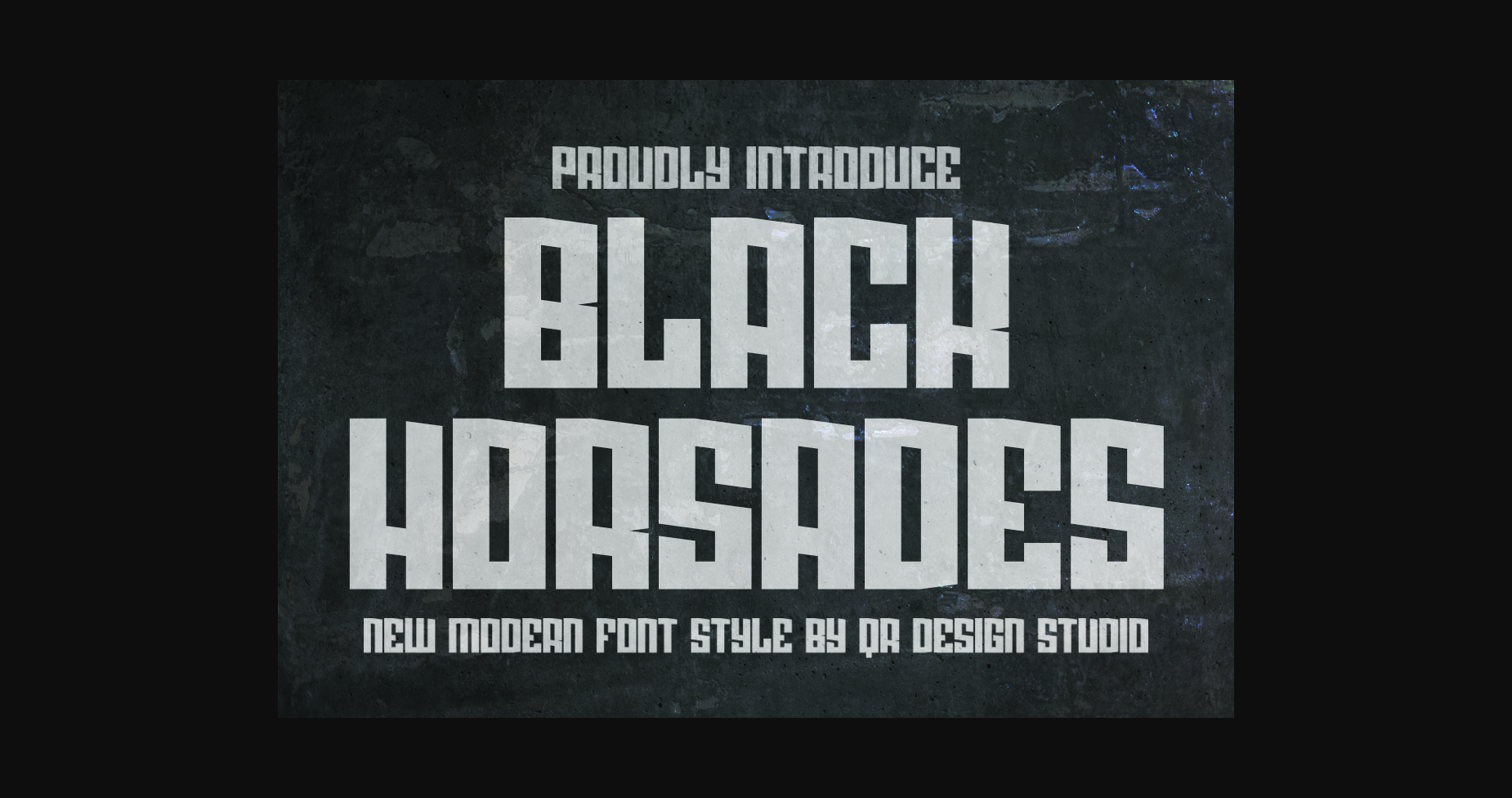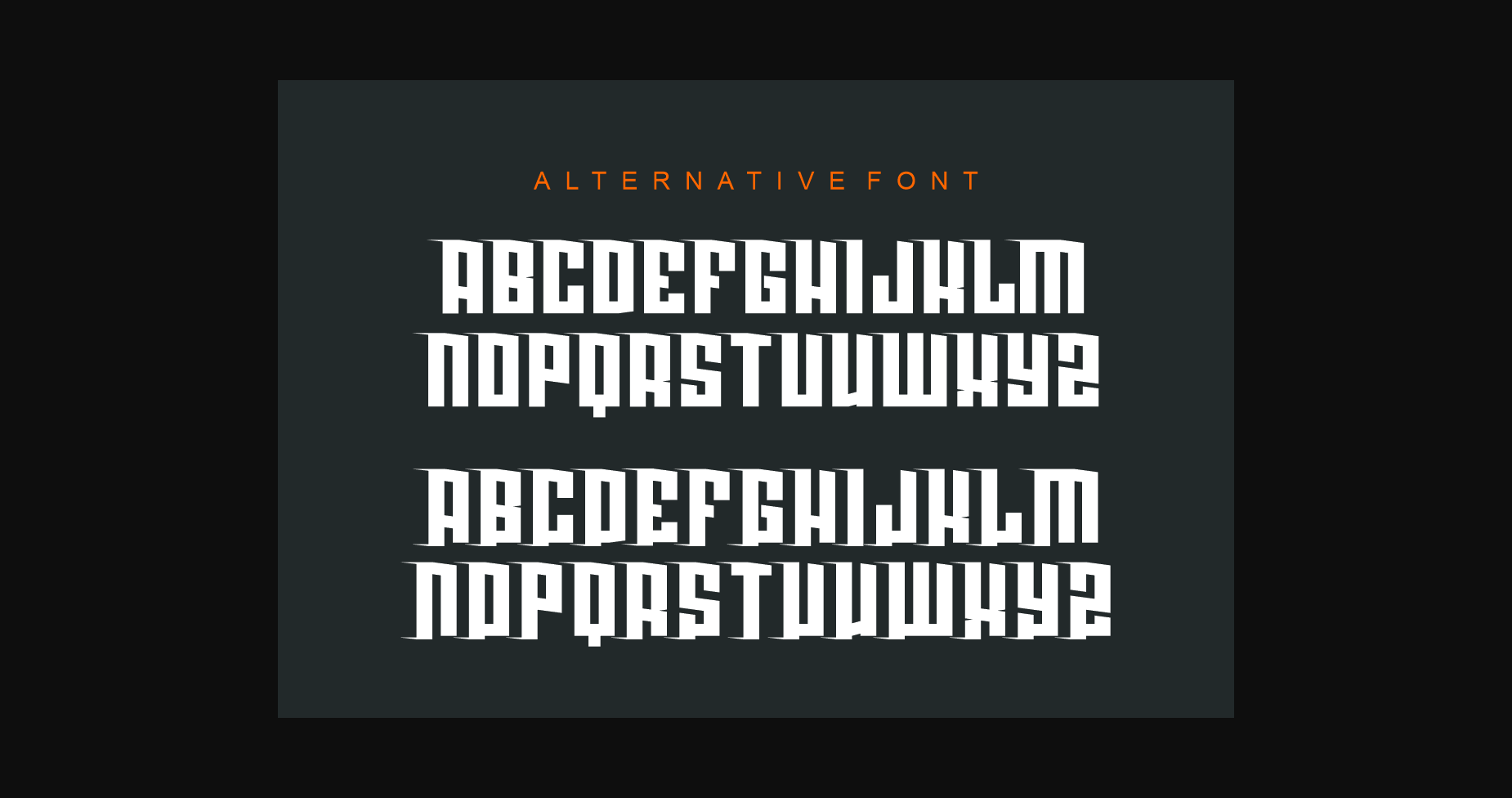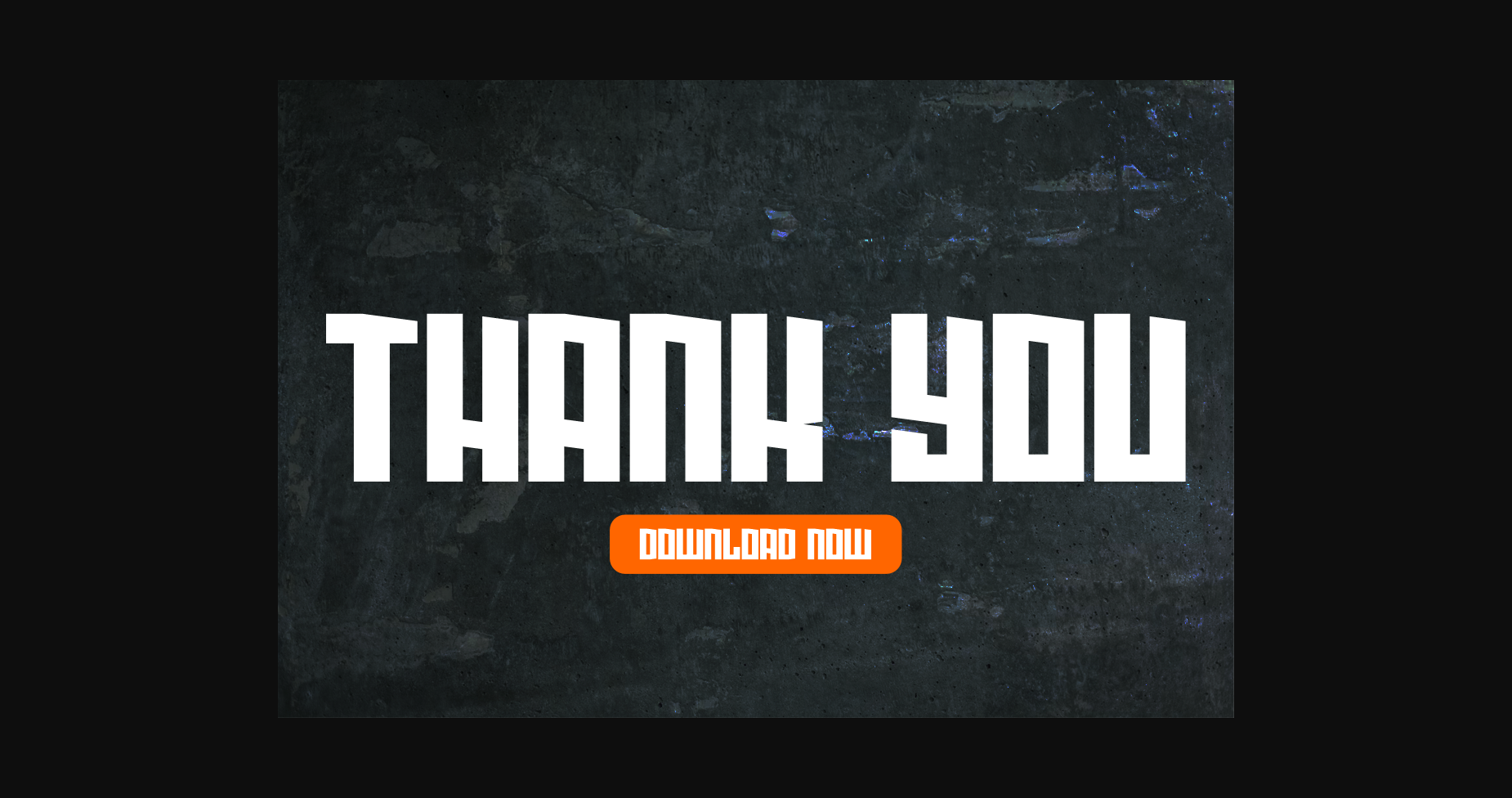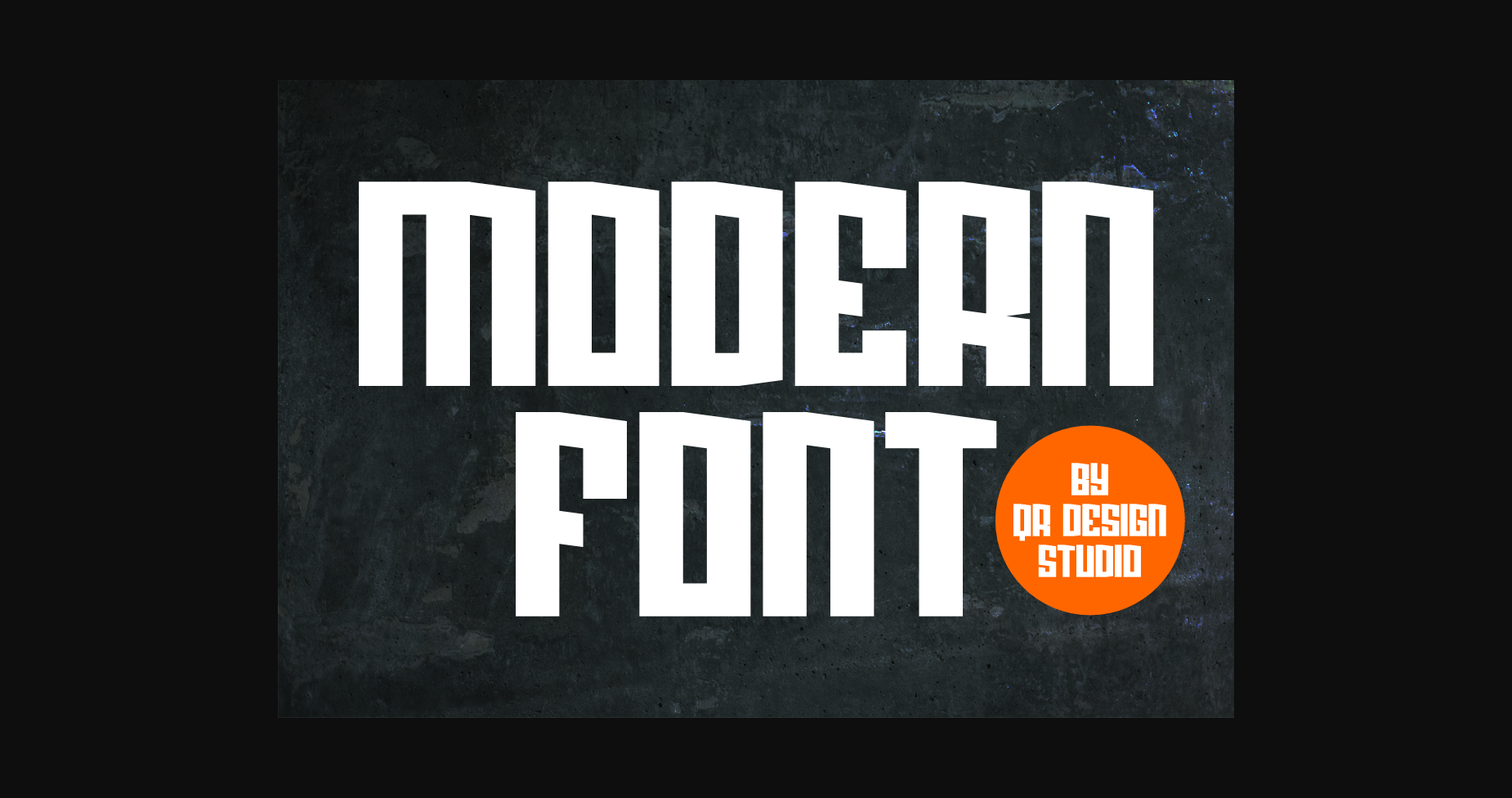
About Black Horsades Font
Black Horsades is a strong and authentic typeface that commands attention. Its bold, no-nonsense letters are designed to make a statement and convey a sense of strength and authority. Perfect for headlines, logos, and branding materials, it brings a bold and confident edge to any design project.